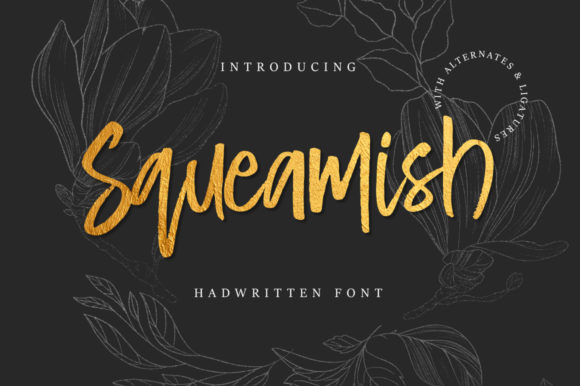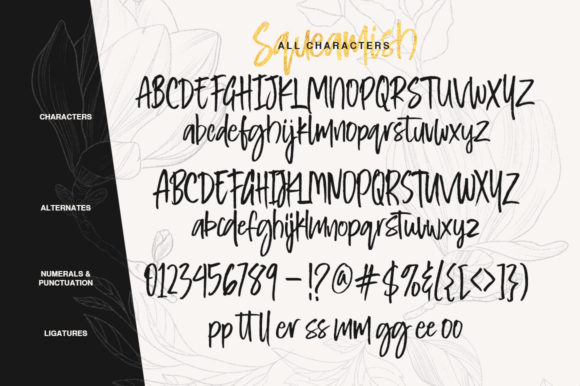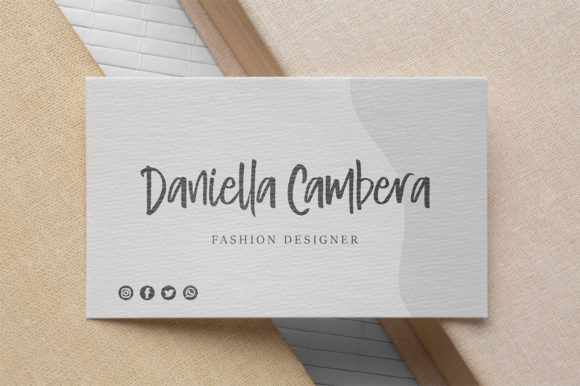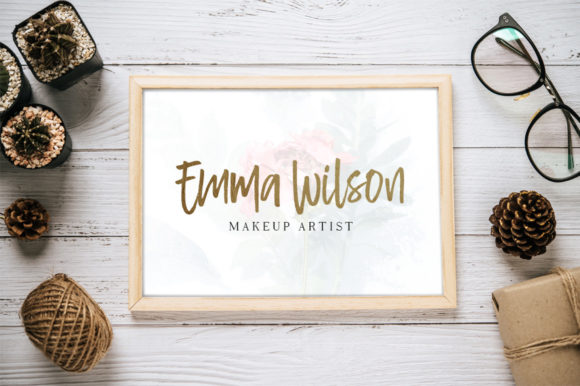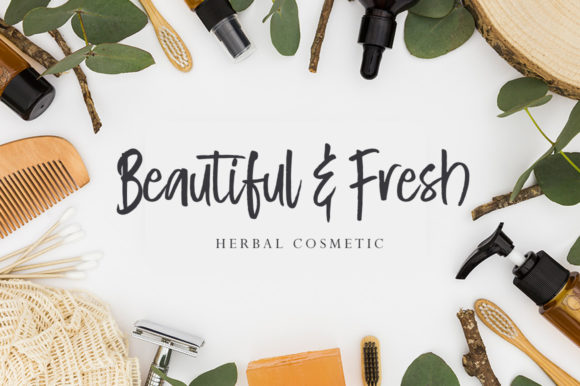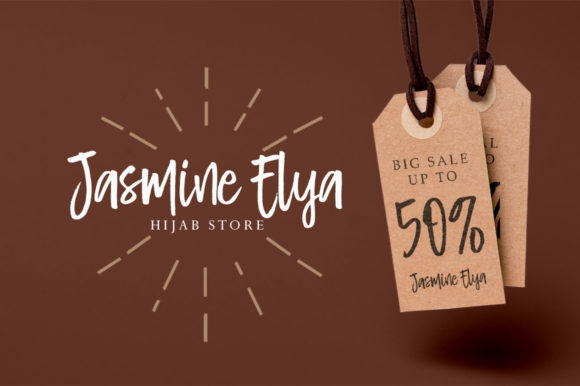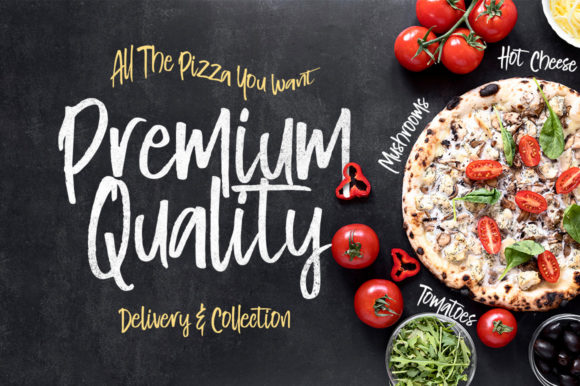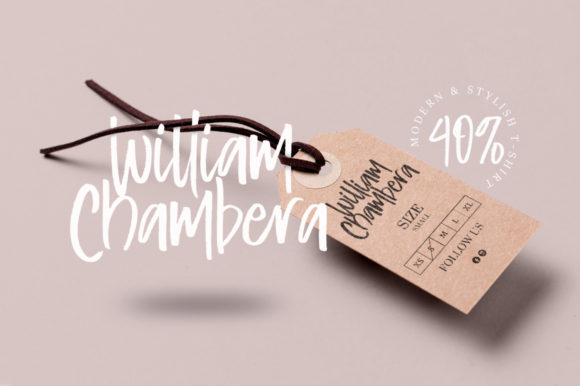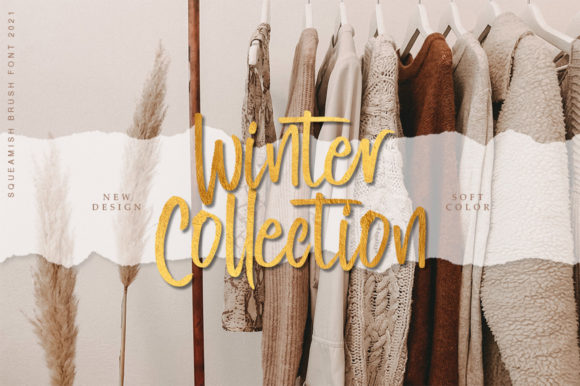
Squeamish Font
About Squeamish Font
Squeamish is a relaxed and asymmetrical handwritten font. Whether you’re looking for fonts for Instagram or calligraphy scripts for DIY projects, this font will turn any creative idea into a true piece of art!